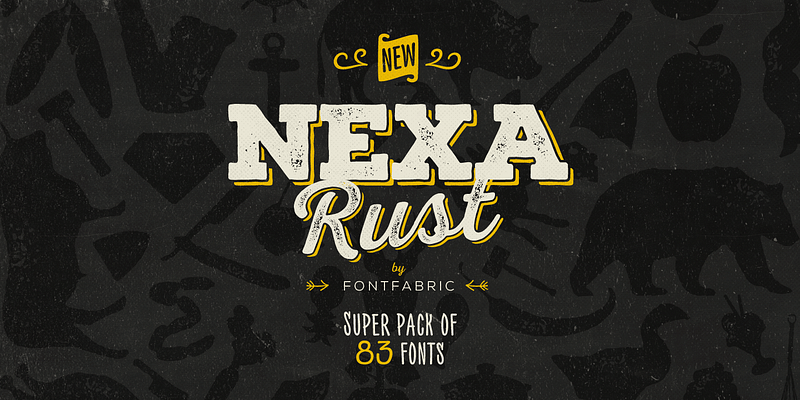
Nexa Rust Font is perfect for vintage industrial branding, weathered signage projects, retro automotive logos, distressed poster designs, rustic brewery labels, worn metal shop signs, aged construction company materials, and authentic design projects that require distressed typography with industrial weathering and vintage character authenticity.
This Nexa Rust Font is exciting because it masterfully combines modern geometric structure with authentic weathering effects that simulate years of industrial exposure, featuring realistic rust textures and distressed edges that convey genuine age and industrial heritage while maintaining excellent readability for contemporary commercial applications.
The Nexa Rust Font family includes weathered weights with industrial distressing, complete character sets with aged uppercase and lowercase letters, corroded numerals, worn punctuation, and industrial symbols that provide comprehensive typography solutions for vintage and industrial design projects requiring authentic weathered aesthetics and rustic appeal.
Perfect for creating authentic industrial communications and vintage brand identities, Nexa Rust Font Free Download delivers the weathered typography that transforms text into powerful expressions of industrial heritage and time-worn authenticity. This distinctive typeface captures the essence of industrial aging and vintage craftsmanship, making it essential for projects celebrating industrial history, vintage branding, rustic aesthetics, and any design requiring weathered character with authentic industrial sophistication and timeless aged appeal that tells stories of endurance.